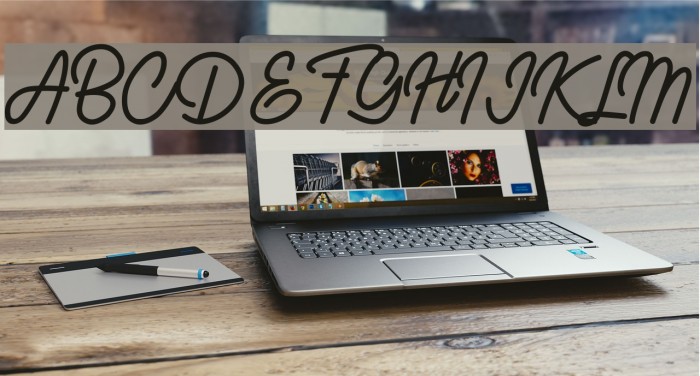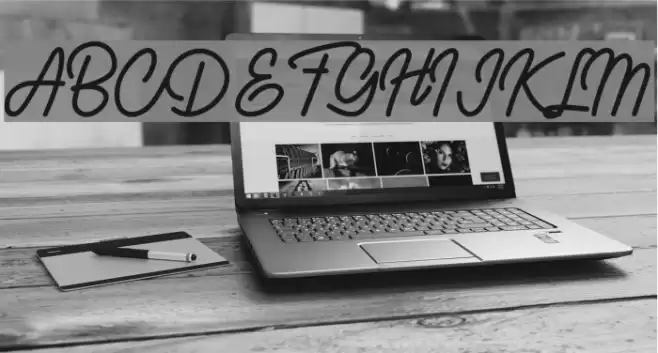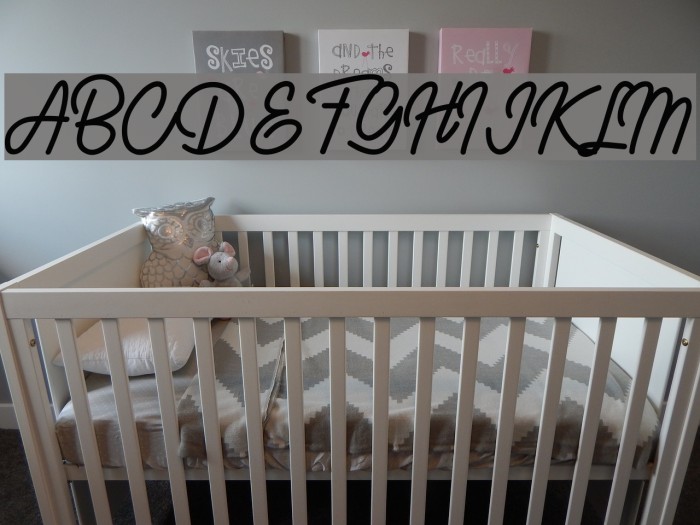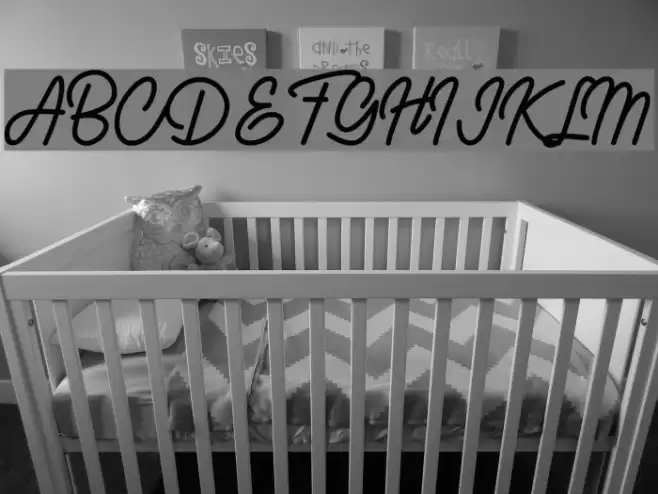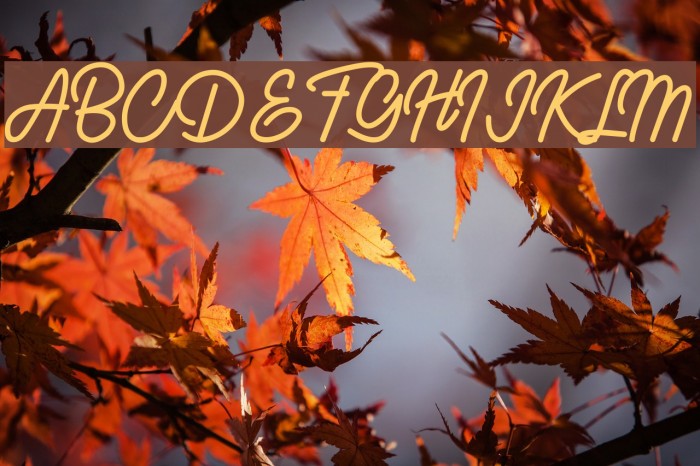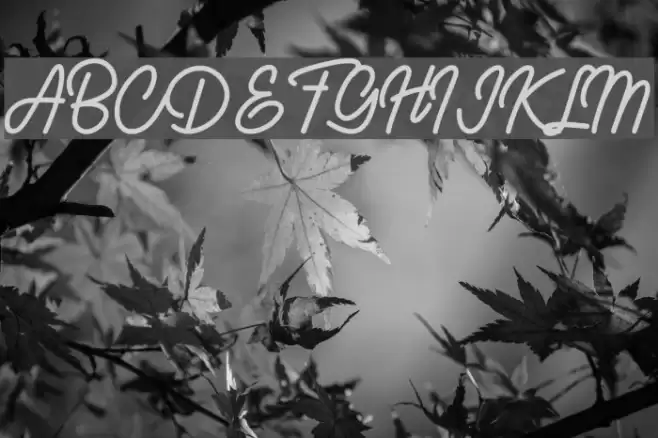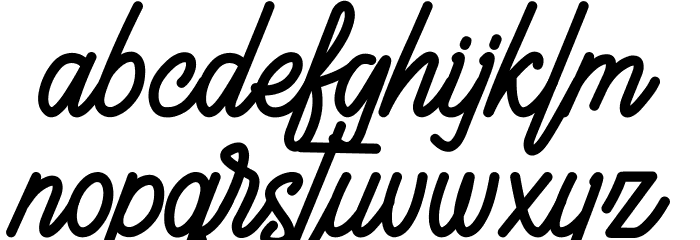
Kaibon Font
This font features a flowing, cursive style with a modern twist. The uppercase letters are elegantly connected, giving a sense of continuity and fluidity. The lowercase letters maintain a consistent slant, enhancing the script's dynamic appearance. The strokes are smooth and rounded, providing a friendly and approachable feel. The characters are well-spaced, ensuring readability while maintaining the script's artistic flair. This font is versatile, suitable for both formal and informal contexts, and can add a personal touch to any design project.
A modern, flowing cursive font with smooth, rounded strokes and elegant connections.
• Proposed Projects: Ideal for wedding invitations, greeting cards, branding projects, and personal stationery.